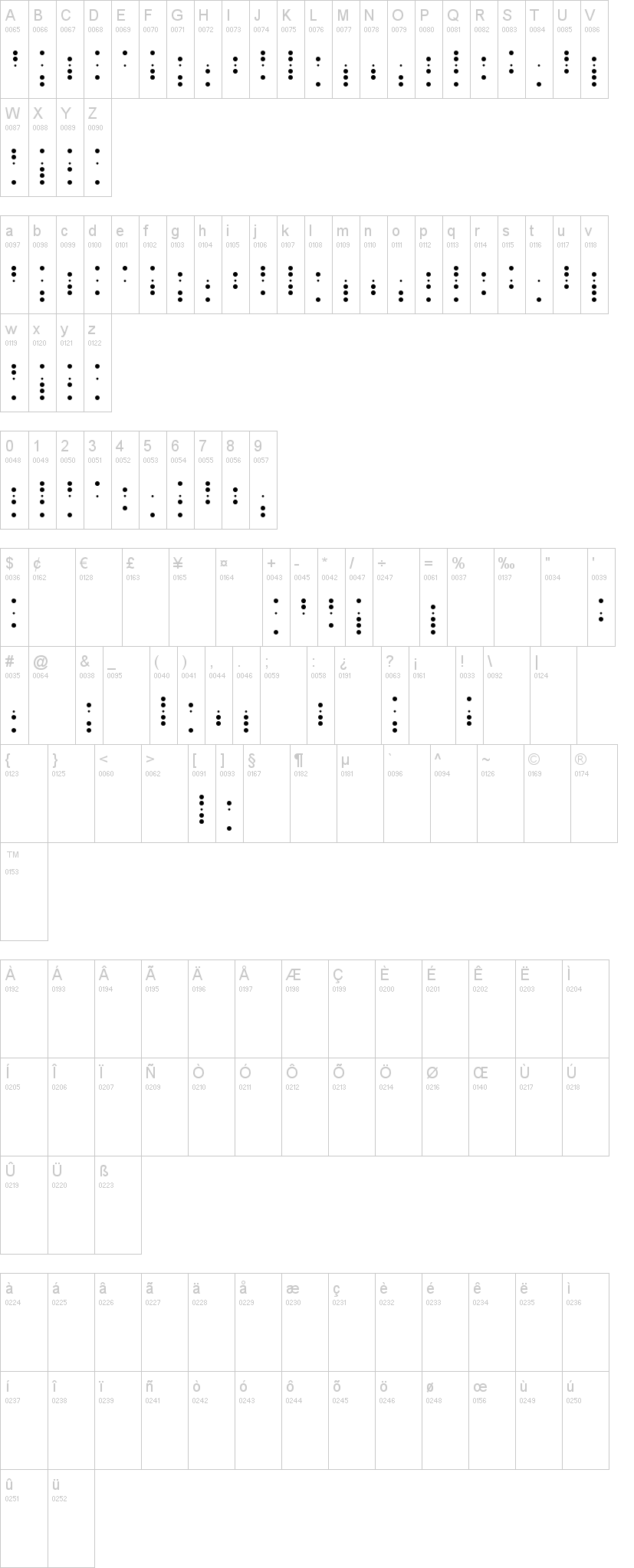
Note of the authorNamed after the inventor Émile Baudot, this is a 5 bit character set predating EBCDIC and ASCII, presented here in simulated punched paper tape form as used in TTY.